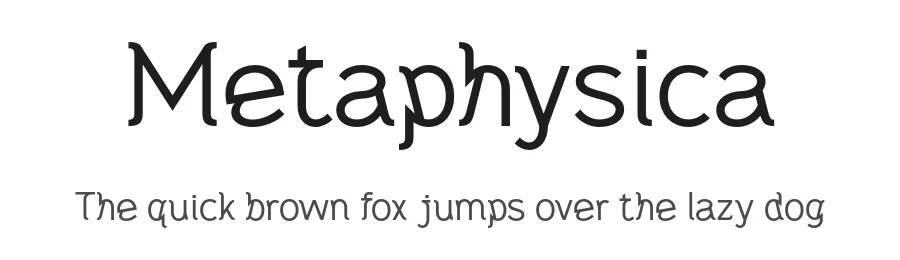
About Silkeborg Font
Silkeborg is a decorative font designed by Typegoals Labs. It includes 460 glyphs, a regular weight, TTF (TrueType) format, and 216 languages. Silkeborg is free to download; check the license details on this page before commercial use. Decorative fonts like Silkeborg work best for logos, posters, packaging, and standout headlines.
Silkeborg supports 216 languages.
Silkeborg Font is a decorative font that shines as a display or heading face. Pair it with a clean sans-serif or serif font for body text β the contrast creates a clear hierarchy while the two styles stay balanced and easy to read.